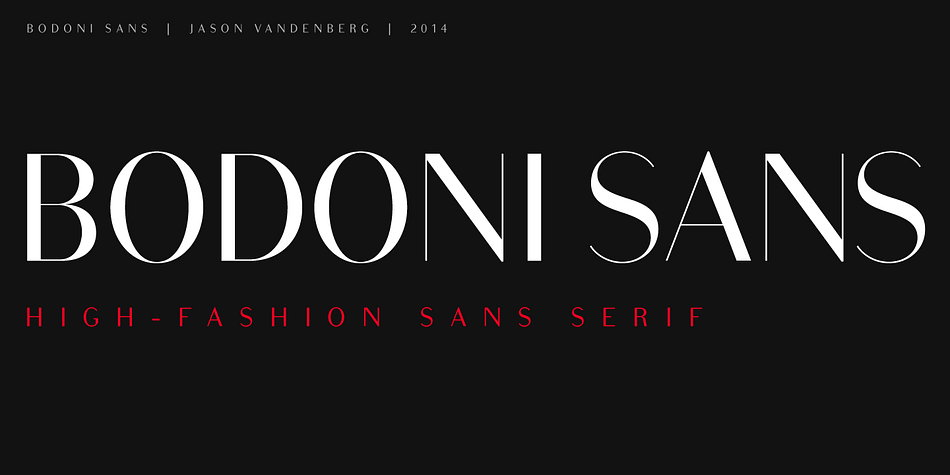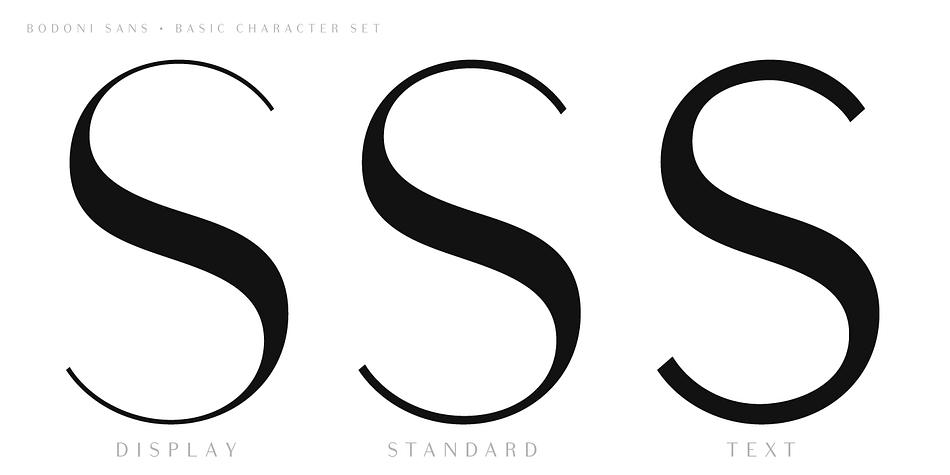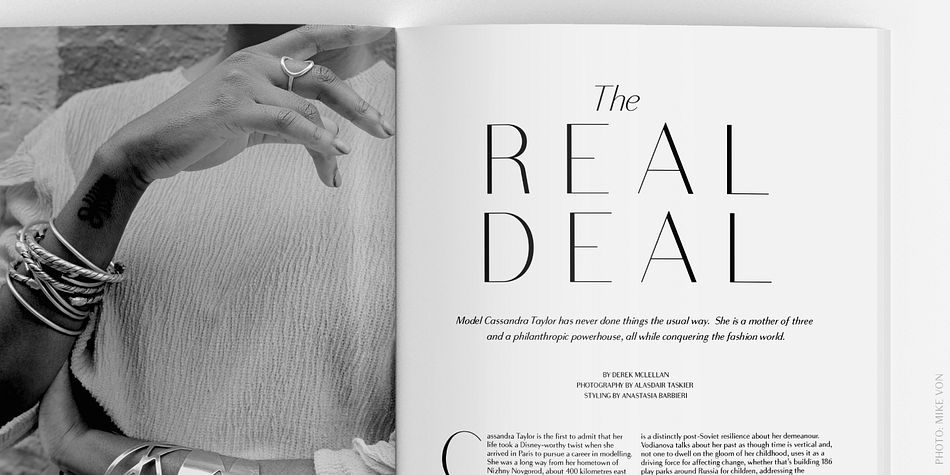
Bodoni Sans Text is a sans serif font family. This typeface has four styles and was published by Jason Vandenberg.
Bodoni Sans is a new classic built on the foundation of two centuries of history. Fresh and contemporary, while feeling familiar. Stylish and sophisticated, confident and elegant.
Bodoni Sans is more than just chopping off the serifs. The classical proportions of the capitals and x-heights were maintained, but the letterforms were rebalanced for use without serifs. Contemporary modifications were made to some widths, as well as an all new Light weight was created.
High contrast is the key feature of Bodoni Sans. To maintain this contrast over a wide range of sizes, three optical sizes were drawn: Standard, Display and Text. Contrast adjustments were made for each optical size for optimal performance. The Standard was designed for the mid range of 12 to 60pt, Display for 48pt and above, and Text for 6 to 12pt. Web/Digital use was also considered while developing Bodoni Sans. The fonts were tested as web formats, and examined on a variety of screens, to ensure seamless use in both print and digital applications.